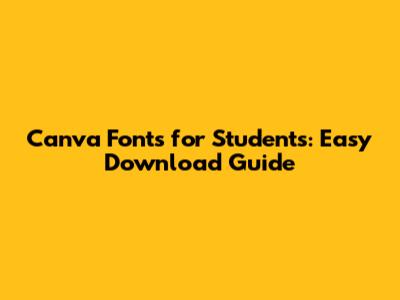
Hey guys! So, you're a student and you want to make your projects, presentations, or even your social media graphics look chef's kiss amazing? Well, you've come to the right place! Canva fonts are a super popular way to add personality and flair to your designs, and guess what? There are tons of awesome ones you can download and use for free, especially if you're a student! We're going to dive deep into how you can snag these cool fonts and elevate your work without breaking the bank. Let's get this party started!
Why Fonts Matter (Especially for Students!)
Alright, let's talk about why picking the right font is such a big deal, especially when you're a student. Think about it: your essays, your project posters, your club's event flyers – they all need to grab attention and communicate effectively. Canva fonts can totally transform a bland design into something eye-catching and professional. A killer font can make your title pop, your body text easy to read, and your overall message more impactful. For students, this is huge! It shows you've put thought and effort into your presentation, which can make a great impression on your teachers or classmates. Plus, let's be real, making things look good can make the whole process more enjoyable. Who wants to stare at a boring Times New Roman for hours, right? Using unique and engaging fonts can actually make studying and project work feel a little less like a chore and a lot more like a creative outlet. Download Canva fonts and see the difference for yourself!
Finding Free Fonts on Canva
Now, the million-dollar question: where do you find these awesome fonts? Canva has a massive library, and a good chunk of it is available for free. When you're in the Canva editor, you'll see a 'Text' tab on the left-hand side. Click on that, and then click 'Add a heading,' 'Add a subheading,' or 'Add a little bit of body text.' Once the text box appears, you'll see a font dropdown menu at the top. This is where the magic happens! Scroll through the list – you'll find everything from sleek sans-serifs to elegant serifs, playful scripts, and bold display fonts. Look for fonts that have a little crown icon next to them – those are typically part of Canva Pro. But don't worry, there are plenty of amazing free options without that crown! We're talking hundreds, maybe even thousands, of fonts you can use without paying a dime. The key is to explore and experiment. Don't just stick to the first few you see. Click around, see how different fonts look with your text. Sometimes, a font you've never heard of can be the perfect fit for your project. Remember, Canva fonts for students should be accessible, and thankfully, Canva offers a fantastic free selection that meets this need perfectly. It’s all about playing around and discovering those hidden gems that will make your designs shine.
Using Fonts for Different Projects
So, you've found some cool fonts, but how do you use them effectively? It's not just about picking pretty letters, guys. Think about the message you want to send. For academic papers or reports, you'll want something clean, readable, and professional. Think classic sans-serifs like Montserrat or Open Sans, or a nice serif like Merriweather. These are super easy on the eyes and convey a sense of seriousness. Now, if you're designing a flyer for a school event, like a bake sale or a talent show, you can totally get more creative! Want to go for a fun, retro vibe? Try a script font like Playlist Script or a bold display font like Anton. Need something modern and edgy for a tech club presentation? A geometric sans-serif might be your jam. The key is to download Canva fonts that offer versatility. Look for fonts that have different weights (light, regular, bold) and styles (italic). This allows you to create hierarchy and visual interest within your design. For example, use a bold font for your main title, a lighter weight for a subtitle, and a regular weight for the body text. This makes your design much more dynamic and easier to digest. Don't be afraid to mix and match fonts, but do it wisely! Generally, sticking to two or three fonts that complement each other is a safe bet. A good rule of thumb is to pair a serif with a sans-serif, or a decorative font with a more minimalist one. Canva fonts for students are your secret weapon to making sure your message is not only heard but also seen and remembered. So, experiment, have fun, and let your creativity run wild!
Beyond Canva's Library: Downloading External Fonts
What if you've scoured Canva's amazing selection and still haven't found that perfect font? No worries, my friends! Canva actually allows you to upload your own fonts, which is a game-changer. This means you're not limited to what's already in their library. There are countless websites out there offering free fonts that you can download and then upload directly into your Canva account. This opens up a whole new universe of typographic possibilities! Imagine finding a super niche, artistic font that perfectly captures the essence of your project – now you can use it! For students, this is especially cool because many design resources offer free licenses for personal and educational use. You just need to be mindful of the licensing terms. Some fonts are completely free for personal use, while others might require a small fee or have restrictions. Always check the license before downloading and using a font, especially if your project is for anything beyond personal study. When you find a font you love on a site like Google Fonts, DaFont, or Font Squirrel, you'll typically download it as a .zip file. Inside, you'll usually find .ttf (TrueType Font) or .otf (OpenType Font) files. These are the ones you need. Once downloaded, head over to Canva, click on the 'Text' tab, and look for the 'Upload a font' option. It's usually at the bottom of the font list. Click that, select your downloaded font file, and voilà! It will be added to your 'Uploaded fonts' section, ready to use. This ability to download Canva fonts from external sources truly empowers you to create unique and personalized designs that stand out from the crowd. It's a fantastic way to express your individual style and make your academic and personal projects truly your own.
Where to Find Free Fonts for Download
Leveraging Canva's Features for Font Success
Beyond just downloading and uploading, Canva offers some seriously cool features that help you make the most of your chosen fonts. Think of these as your secret weapons for creating stunning visuals that really pop. One of the most powerful tools is the Font Combinations generator. If you're ever stuck trying to figure out which fonts go well together, just head over to the 'Text' tab, click 'Font combinations,' and Canva will suggest expertly paired fonts for you. It's a fantastic way to discover new font pairings or to get inspiration when you're feeling uninspired. These suggestions are often based on established typographic principles, so you know you're getting a solid starting point. Another feature to explore is text effects. Once you've added text and chosen your font, click on the text box, and you'll see a 'Effects' button in the top toolbar. Here, you can add shadows, lift effects, outlines, glows, and even curve your text! These effects can really help your chosen Canva fonts stand out and add a professional polish to your designs. For students, especially when creating presentations or posters, these effects can make your titles and key messages incredibly dynamic. Don't forget about letter spacing and line height! These are subtle but incredibly important typographic controls. You can adjust the space between letters (kerning) and the space between lines of text (leading) using the 'Spacing' option in the top toolbar. Proper spacing can drastically improve readability and the overall aesthetic appeal of your text. Too cramped, and it's hard to read; too far apart, and it looks messy. Playing with these settings can make a huge difference. Canva fonts become even more powerful when combined with these built-in features. It’s about using the whole toolkit to your advantage, turning simple text into a compelling design element that effectively communicates your message and looks absolutely fantastic. So, don't just slap text on a page; play with these features and see how much better your designs can become!
Making Your Text Readable and Appealing
Readability is king, guys! No matter how cool your font looks, if people can't easily read it, your design has failed. This is especially true for students who need their information to be clear and accessible. When you download Canva fonts, always consider how they'll function in different sizes and contexts. A fancy script font might look amazing as a large headline, but it's probably a terrible choice for the body text of your essay. For body text, always opt for clean, legible fonts. Sans-serifs like Lato, Roboto, or Raleway are generally excellent choices because they lack the small decorative strokes (serifs) that can sometimes blur together at smaller sizes. Ensure there's enough contrast between your text color and the background color. A common mistake is using light gray text on a white background, or dark blue on black – almost impossible to read! Use Canva's contrast checker tool if you're unsure. When adjusting Canva fonts, pay close attention to the 'Spacing' settings. Adequate letter spacing prevents words from feeling cramped, and appropriate line height ensures that lines of text don't run into each other. Aim for a line height that's roughly 1.2 to 1.5 times the font size. Also, consider the length of your lines. Very long lines of text can be tiring to read, as your eyes have to travel too far. Break up long blocks of text into shorter paragraphs or use bullet points. Finally, don't overdo it with font styles. While it's tempting to use every cool effect Canva offers, simplicity is often best. Too many fonts, too many colors, and too many effects can make your design look chaotic and unprofessional. Stick to a consistent style throughout your project. By focusing on readability and thoughtful application, you can ensure that the Canva fonts you choose not only look great but also effectively serve their purpose in communicating your message clearly and engagingly.
Choosing Fonts for Different Audiences and Purposes
Alright, let's wrap this up by thinking about who you're designing for and why. This is crucial for selecting the right Canva fonts. If you're creating a report for your professor, you want fonts that convey professionalism and academic rigor. Think classic, understated fonts like Source Sans Pro or PT Serif. These fonts are trustworthy and easy to read, ensuring your content takes center stage. Now, imagine you're designing a social media graphic for your university's environmental club. Here, you might want something more natural, perhaps a font with a slightly organic feel, or even a bold, impactful font to grab attention in a busy feed. Fonts like Montserrat (for its clean, modern look) or perhaps a more unique display font for the main message could work wonders. For a fun event poster, like a campus concert or a movie night, feel free to get playful! Consider a retro font, a handwritten script, or a bold, eye-catching typeface that matches the vibe of the event. The key is to download Canva fonts that offer variety and allow you to tailor your message. Think about the emotion you want to evoke. Do you want to feel serious and authoritative? Go for strong serifs. Do you want to feel friendly and approachable? Choose rounded sans-serifs or playful scripts. Consider legibility across devices. If your design will be viewed on a phone, make sure your chosen fonts are clear even at smaller sizes. Ultimately, the best font choices are the ones that align with your message, resonate with your intended audience, and enhance the overall impact of your design. Canva fonts for students are incredibly versatile, and by understanding your audience and purpose, you can use them to create designs that are not only beautiful but also incredibly effective.